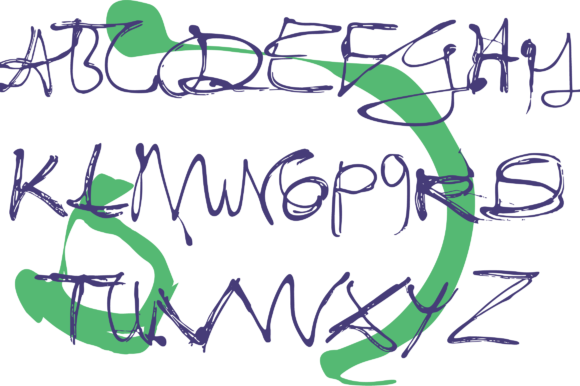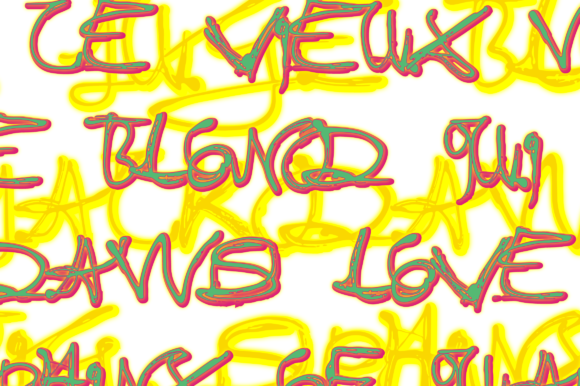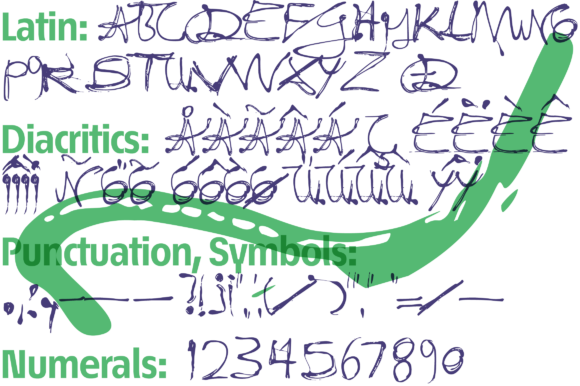
Introducing Fixogum Font: The Bold and Unique Handwritten Font You Need
Fixogum is a unique and bold handwritten font with a bold twist! In the world of typography, a good font can make all the difference in the success of a design project. Whether you’re a designer, crafty DIY enthusiast, or simply someone who appreciates beautiful typography, Fixogum is a font that is sure to capture your attention.
What Makes Fixogum Stand Out?
Fixogum is not your average font. Its bold and unique handwritten style is perfect for making a statement in any design project. The font’s distinctive twist sets it apart from other fonts, making it a standout choice for designers and crafters looking to add a personal touch to their work.
One of the key features of Fixogum is its bold and eye-catching appearance. The font’s thick lines and unique letterforms make it perfect for headlines, titles, and other design elements where you want to grab the viewer’s attention. At the same time, the font’s handwritten style gives it a friendly and approachable feel, making it suitable for a wide range of design projects.
Fixogum is a versatile font that is perfect for both designers and crafters. Whether you’re working on a professional design project or a DIY craft, Fixogum can add a unique and personal touch to your work. The font’s bold and eye-catching style makes it perfect for:
- Headlines and titles: Use Fixogum to create bold and eye-catching headlines and titles that grab the viewer’s attention.
- Signs and posters: Fixogum is perfect for creating eye-catching signs and posters that stand out.
- DIY crafts: Add a personal touch to your DIY crafts, such as scrapbooking, card making, and journaling, with Fixogum.
- Branding and packaging: Use Fixogum to create unique and memorable branding and packaging that sets your product apart.
Key Features of Fixogum
Here are some of the key features that make Fixogum a standout font:
- Bold and eye-catching style: Fixogum’s bold and unique handwritten style makes it perfect for making a statement in any design project.
- Unique letterforms: The font’s distinctive letterforms set it apart from other fonts and give it a personal touch.
- Handwritten feel: Fixogum’s handwritten style gives it a friendly and approachable feel, making it suitable for a wide range of design projects.
- Versatile: Fixogum is a versatile font that can be used for a wide range of design projects, from professional designs to DIY crafts.
Fixogum is a unique and bold handwritten font with a bold twist that is perfect for designers and crafters. Its distinctive style and versatility make it a standout choice for a wide range of design projects. Whether you’re looking to add a personal touch to your work or make a statement with bold and eye-catching typography, Fixogum is the perfect font for you.